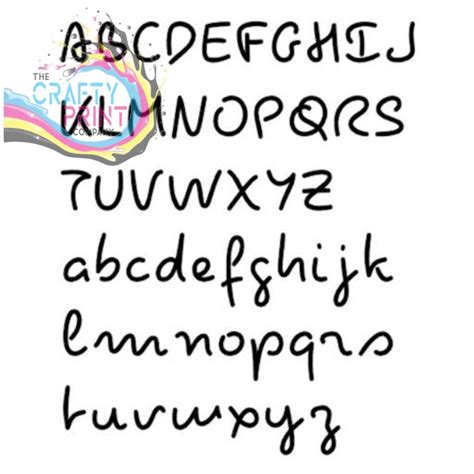
In the world of reality television, few shows have captured the public's imagination quite like *Love Island*. This British dating show, which first aired in 2015, has become a cultural phenomenon, known for its glamorous setting, dramatic storylines, and, of course, its distinctive visual style. One of the most recognizable elements of *Love Island* is its unique font, which has become synonymous with the show's branding. This *Love Island Font* is not just a design choice; it's a crucial part of the show's identity, helping to create a cohesive and memorable visual experience for viewers.
The Evolution of the Love Island Font
The *Love Island Font* has evolved over the years, reflecting the show's growth and changing aesthetics. The original font used in the early seasons was a bold, modern typeface that conveyed a sense of excitement and energy. As the show gained popularity, the font was refined to better match the glamorous and aspirational themes of the series. Today, the *Love Island Font* is a sleek, stylish typeface that perfectly complements the show's luxurious setting and dramatic storylines.
One of the key features of the *Love Island Font* is its use of uppercase letters, which give it a strong, confident appearance. The font also features rounded edges and smooth curves, which add a touch of elegance and sophistication. This combination of boldness and refinement makes the *Love Island Font* instantly recognizable and highly effective in conveying the show's brand identity.
Design Elements of the Love Island Font
The *Love Island Font* is characterized by several distinctive design elements that contribute to its unique look and feel. Some of the key features include:
- Bold and Modern: The font's bold strokes and modern design give it a strong, eye-catching appearance that stands out on screen and in promotional materials.
- Uppercase Letters: The use of uppercase letters adds a sense of urgency and excitement, making the font perfect for headlines and titles.
- Rounded Edges: The rounded edges and smooth curves of the font add a touch of elegance and sophistication, balancing the boldness with a sense of refinement.
- Consistent Spacing: The font features consistent letter spacing, which ensures that text remains legible and easy to read, even at smaller sizes.
These design elements work together to create a font that is both visually striking and highly functional, making it an essential part of the *Love Island* brand.
The Impact of the Love Island Font on Branding
The *Love Island Font* plays a crucial role in the show's branding, helping to create a cohesive and memorable visual identity. The font is used consistently across all aspects of the show, from the opening credits and title sequences to promotional materials and social media posts. This consistency helps to reinforce the show's brand identity and makes it instantly recognizable to viewers.
One of the key benefits of using a distinctive font like the *Love Island Font* is that it helps to differentiate the show from its competitors. In a crowded television landscape, having a unique and recognizable visual identity can make a big difference in attracting and retaining viewers. The *Love Island Font* achieves this by combining boldness and elegance, creating a look that is both modern and timeless.
Another important aspect of the *Love Island Font* is its versatility. The font can be used in a variety of contexts, from large-scale graphics to small text elements, without losing its impact or legibility. This versatility makes it an invaluable tool for the show's branding team, allowing them to create a wide range of promotional materials that all share a consistent visual style.
Using the Love Island Font in Design Projects
If you're a designer looking to incorporate the *Love Island Font* into your own projects, there are a few things to keep in mind. First, it's important to understand the font's design principles and how they contribute to its unique look and feel. By studying the font's bold strokes, uppercase letters, rounded edges, and consistent spacing, you can gain a deeper appreciation for its design and how to use it effectively in your own work.
When using the *Love Island Font* in design projects, it's also important to consider the context in which it will be used. The font is particularly well-suited to headlines, titles, and other large-scale text elements, where its bold and modern design can make a strong visual impact. However, it can also be used for smaller text elements, as long as the letter spacing and size are adjusted to ensure legibility.
Here are some tips for using the *Love Island Font* in your design projects:
- Pair with Complementary Fonts: To create a balanced and harmonious design, consider pairing the *Love Island Font* with complementary fonts that have a similar style or mood. For example, you might pair it with a sleek, modern sans-serif font for body text, or a more traditional serif font for a classic look.
- Use Consistent Sizing: To maintain a cohesive visual style, use consistent sizing for the *Love Island Font* throughout your design. This will help to create a sense of unity and make your design easier to read.